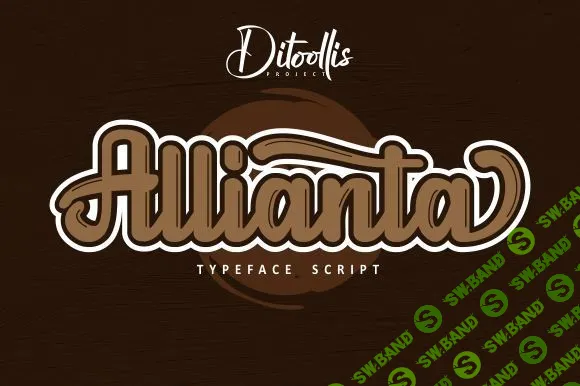
Название: Allianta Font
Описание:
Allianta is a playful and unique handwritten font with a lovely charm. It will turn any design idea into a true stand out.